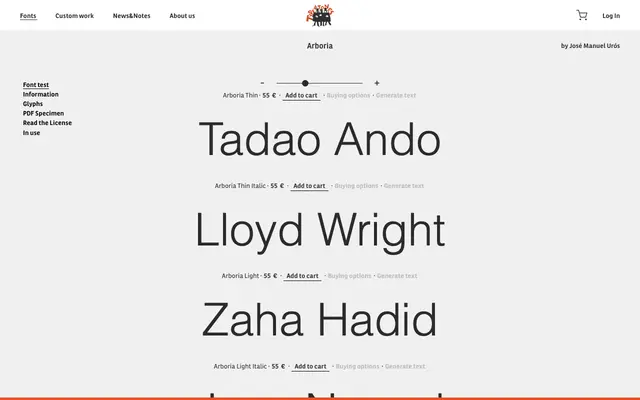
Arboria
A geometric sans-serif by José Manuel Urós offered in six weights with matching italics, suited to editorial and corporate applications.
Designed by José Manuel Urós and published by Type-ø-tones, Arboria covers six weights from Thin to Black, each paired with an italic. The even stroke construction and clean letterforms follow a geometric sans tradition, making it adaptable across print and screen contexts. The full family of twelve styles gives sufficient range for multi-weight typographic systems.
The even stroke weights, clean forms and geometric naming conventions suggest a geometric sans-serif tradition, sitting alongside mid-century European models.